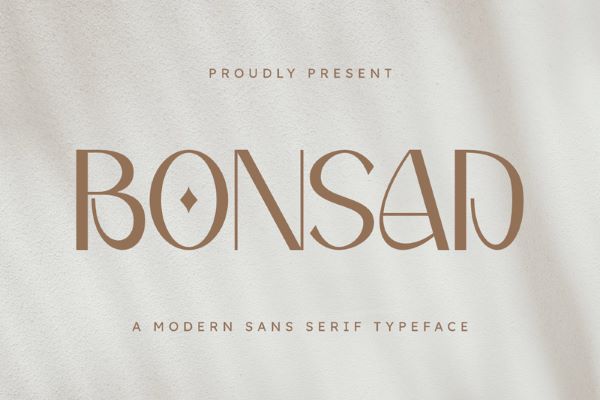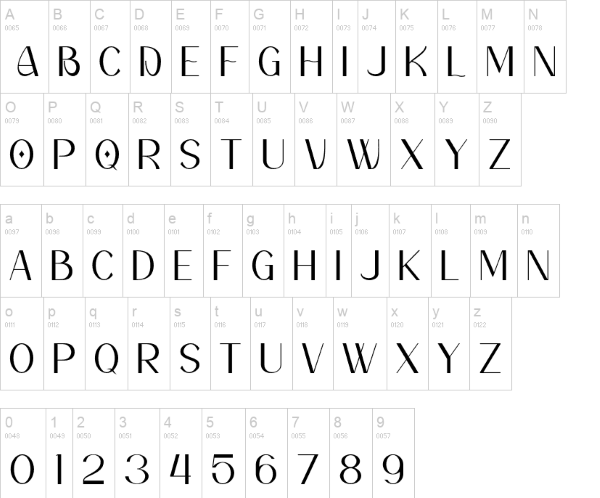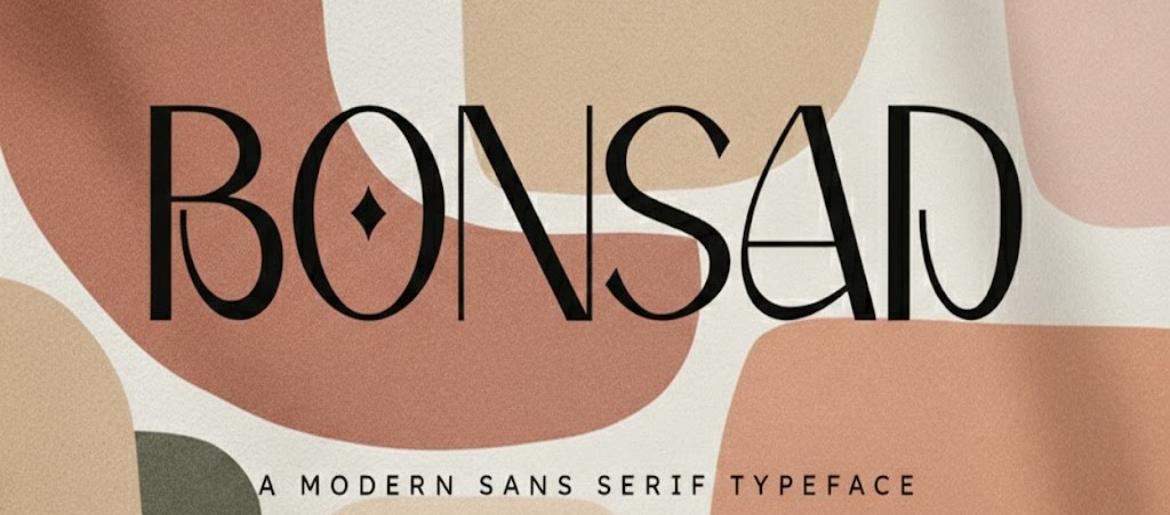
Bonsad Font
Bonsad Font is a modern display typeface with bold structure and clean, confident letterforms. Its strong visual presence makes it suitable for logos, headlines, posters, and branding projects. Bonsad balances simplicity with impact, helping designs appear professional, contemporary, and visually striking across both digital and print layouts.
➤ Font Name: Bonsad
➤ Designer: Muhammad Yafinuha
➤ Style: Sans serif